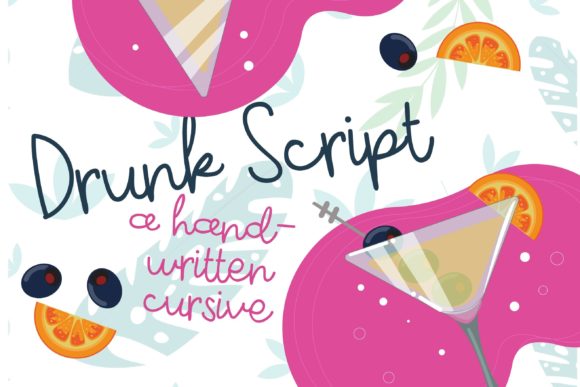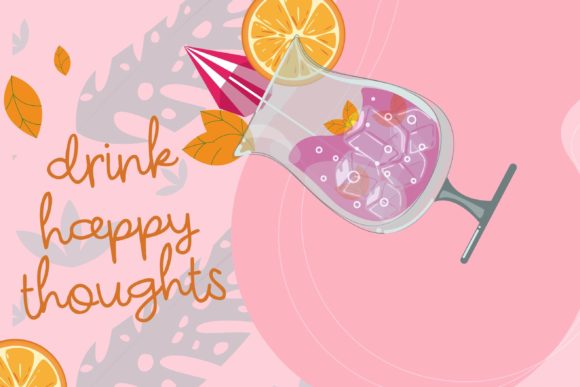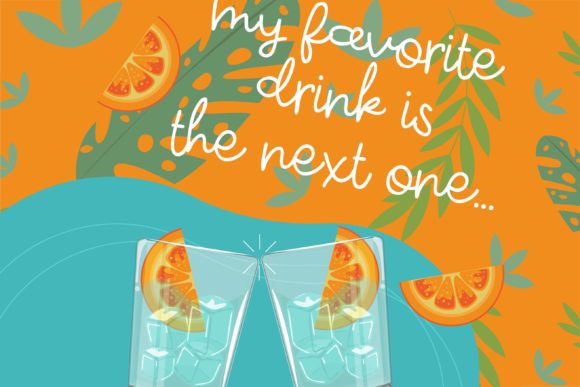
About Drunk Script Font
This hand-crafted script exudes a charming blend of sloppiness and whimsy, making it the perfect choice for infusing a friendly and playful feel into all your creative endeavors. The slightly messy and carefree strokes of this script font add a unique and approachable touch, bringing a sense of warmth and personality to your beautiful creations.
The playful nature of the hand-crafted script becomes a standout feature, creating an atmosphere of joy and lightheartedness in your designs. Its whimsical character adds a touch of spontaneity, making it ideal for projects where a relaxed and inviting vibe is desired.
Incorporate this script font to add a friendly and approachable feel to your beautiful creations. Whether used for headlines, titles, or body text, the slightly sloppy and whimsical nature of the script introduces an element of casual charm. It becomes a visual storyteller, contributing to a design that feels authentic and relatable.
The versatility of this hand-crafted script makes it suitable for a wide range of applications. From social media graphics to product packaging and beyond, the font’s playful and whimsical aesthetic enhances the overall visual appeal. Its slightly messy strokes create a handmade and artisanal quality, making it perfect for projects that seek a personal and unique touch.
Embrace the imperfect beauty of this hand-crafted script as it goes beyond being just a font; it becomes a design element that adds character and friendliness to your creative works. Whether applied to digital or print projects, this script font stands ready to infuse your designs with a playful and whimsical spirit. Enjoy the process of creating with this font, as it transforms your beautiful creations into visually engaging and delightful realities.